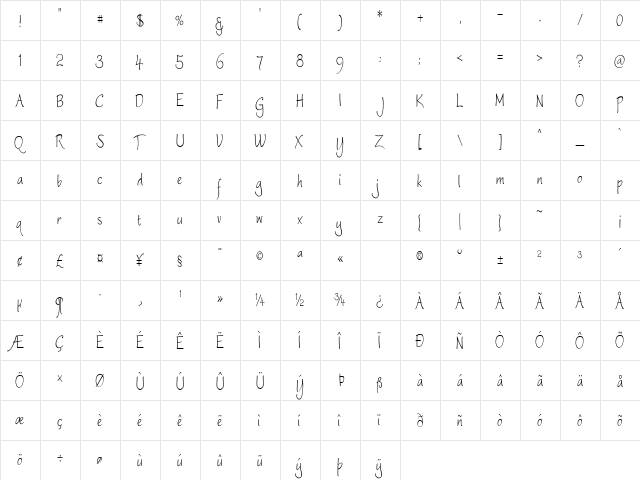
Worstveld Sling Condense Regular
Design Context for Worstveld Sling Condense Typeface
Worstveld Sling Condense takes a measured approach to typography — its balanced proportions and neutral character make it a reliable workhorse for both digital and print work. Its narrow stance lets it pack a punch even in space-constrained designs.